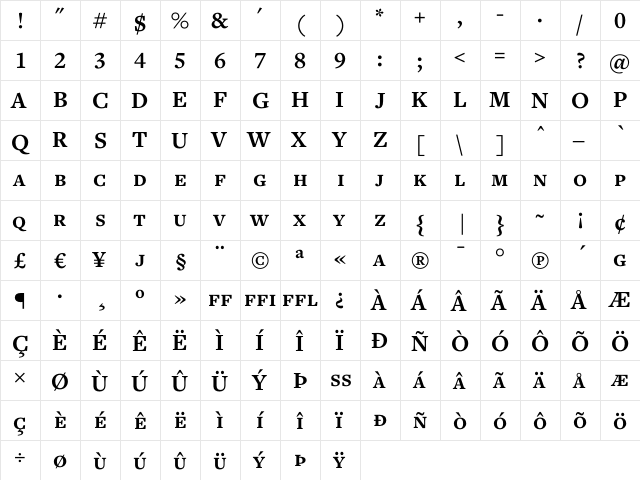
Freight Text Bold SC
| Foundry | Joshua Darden & Phil's Fonts, Inc |
| Designer | Joshua Darden |
Design Context for Freight Typeface
Freight offers clean, dependable letterforms without strong stylistic allegiance, making it a practical choice for designers who need flexibility. Its bold stroke weight gives it real presence on the page.